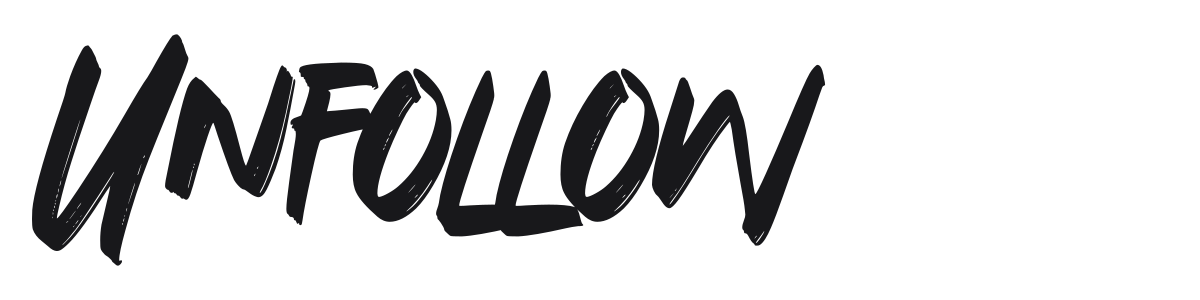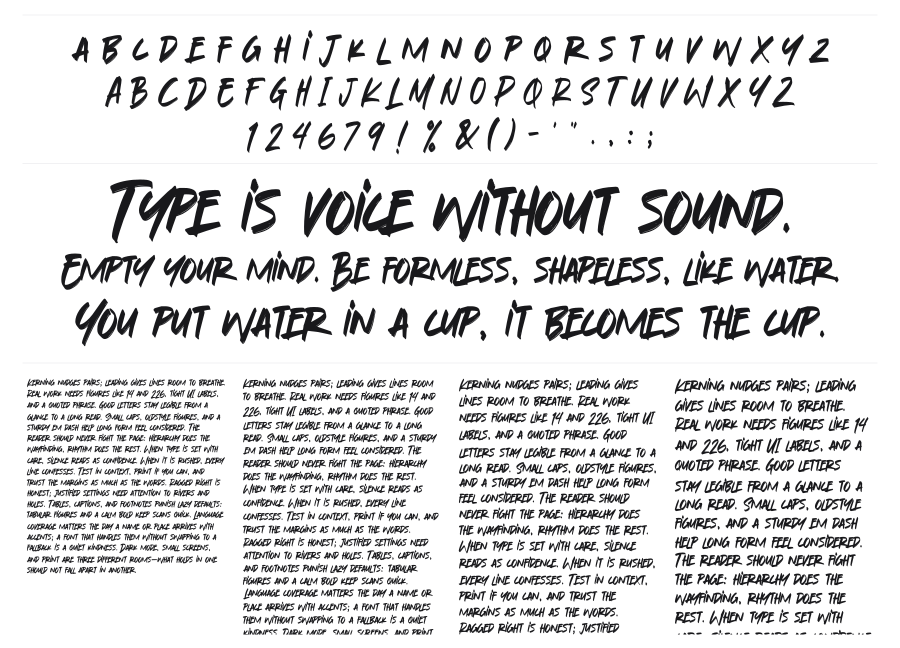
Unfollow
Unfollow is a heavy brush script with aggressive ink texture and visible bristle drag throughout. The thick downstrokes and frayed terminals give it an authentically hand-painted quality that sits somewhere between street art and skate culture. Strong at large sizes for posters, apparel, and music branding.